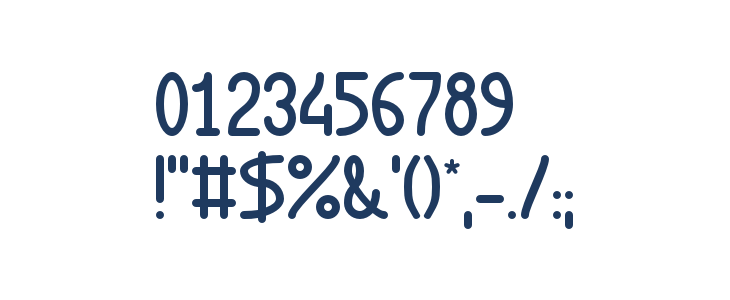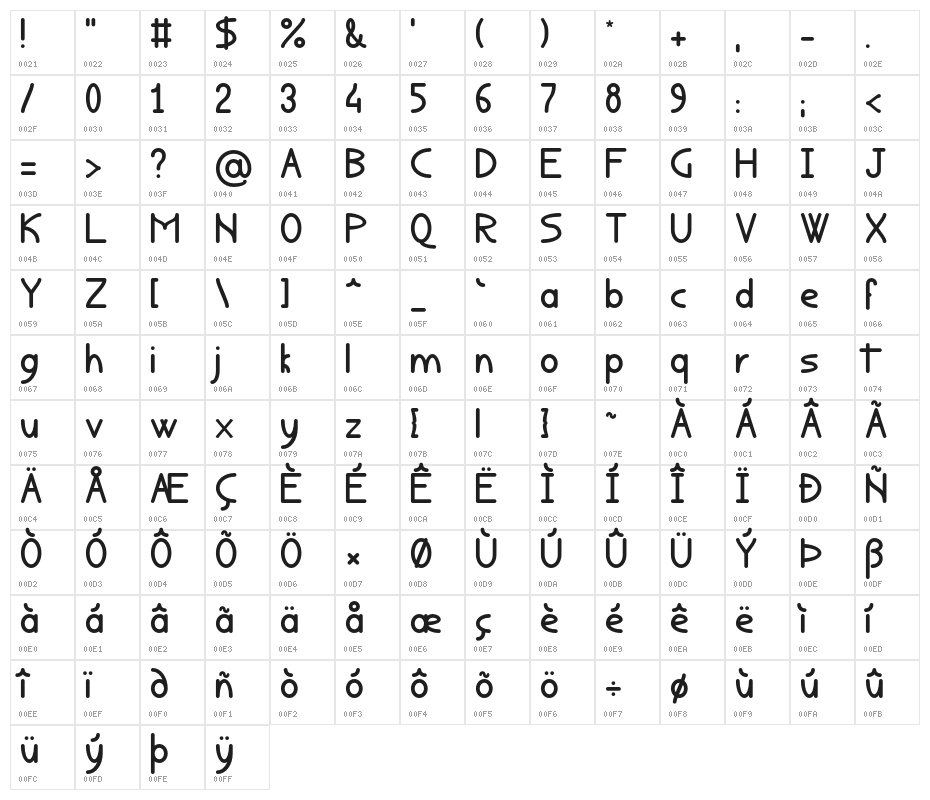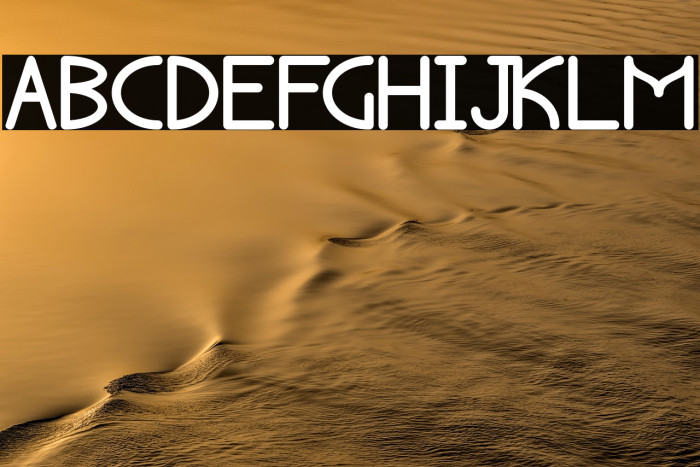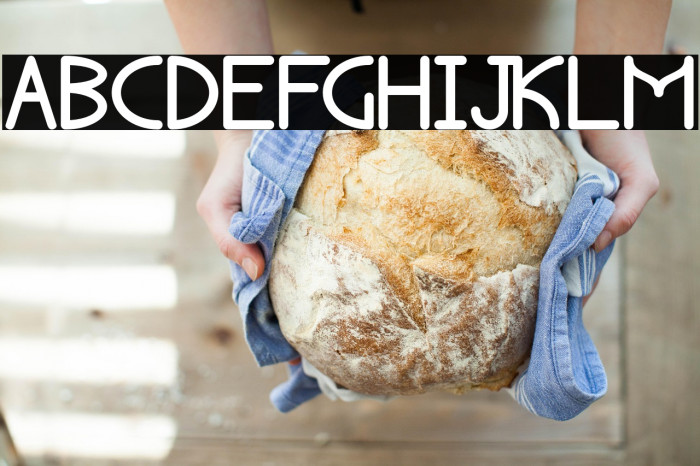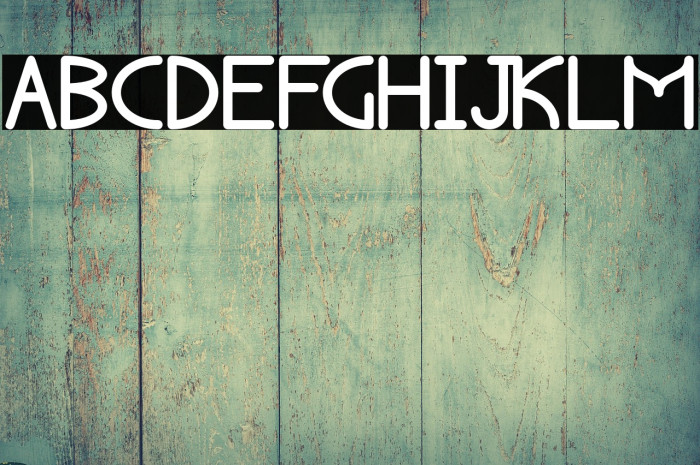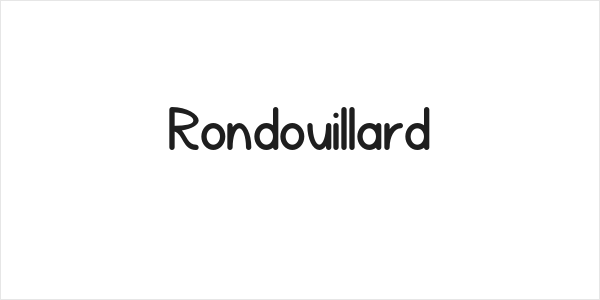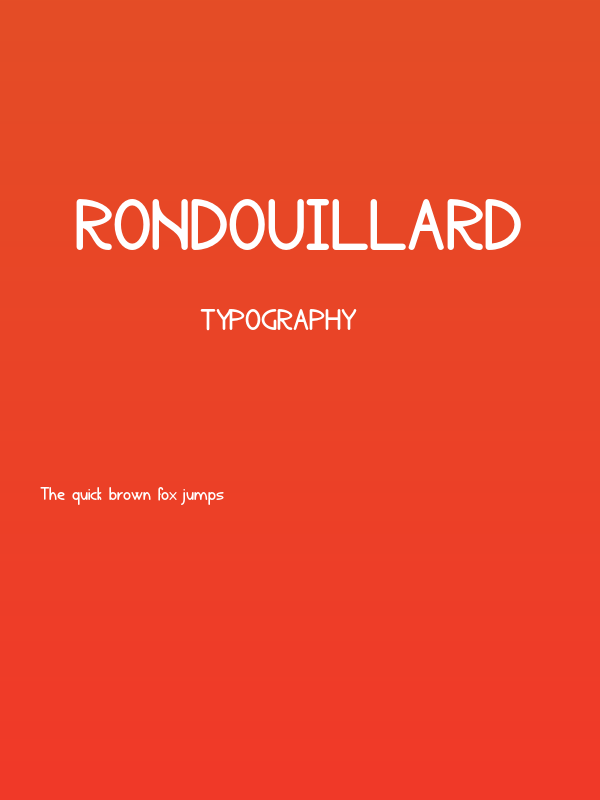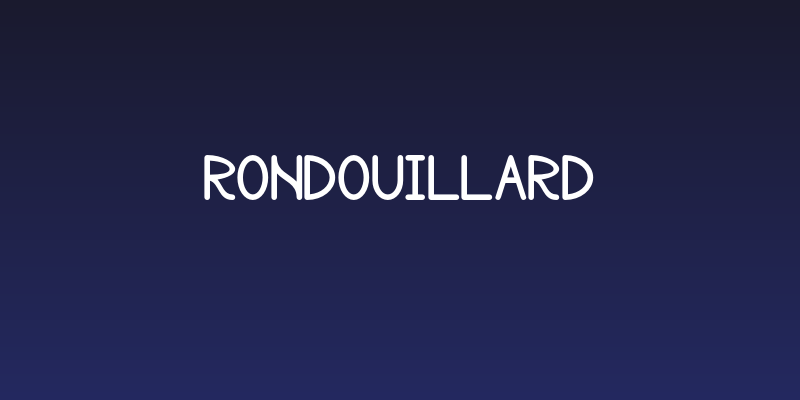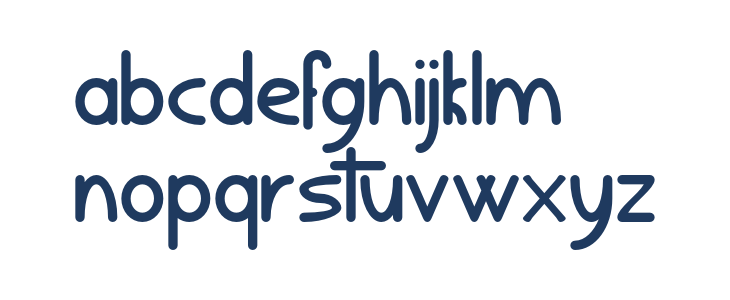
Rondouillard Font
Rondouillard Description
This font features a playful and rounded style, characterized by its smooth curves and consistent stroke width. The letters are evenly spaced, creating a harmonious and approachable appearance. The uppercase and lowercase letters maintain a uniform height, contributing to its legibility. The numerals and special characters share the same rounded aesthetic, making them blend seamlessly with the alphabetic characters. This font's friendly and informal look makes it suitable for a variety of creative projects.
| Proposed Projects | Ideal for children's books, playful branding, casual invitations, and creative posters. |